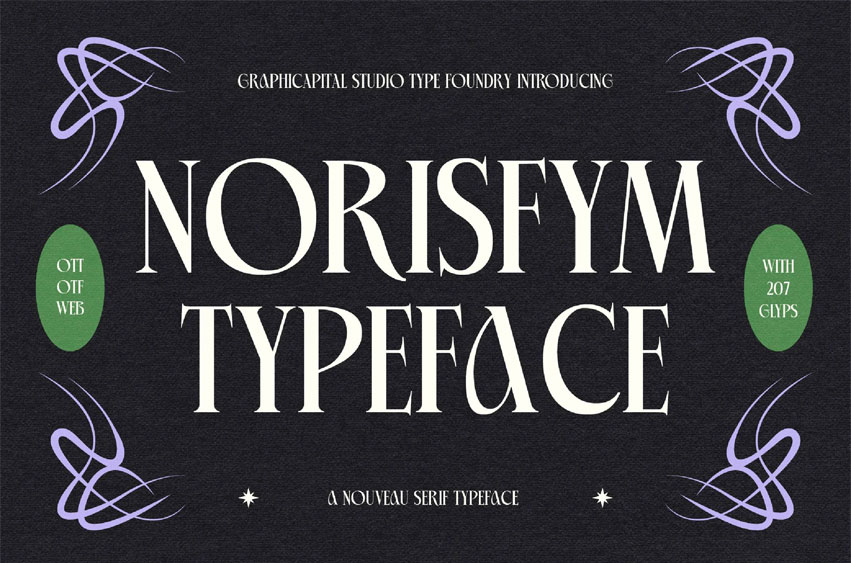
Norisfym Font
Norisfym Font is a serif font influenced by Art Nouveau, featuring decorative curves that give a whimsical and nostalgic feel. Suitable for posters, invitations, branding, and modern yet classic-themed designs.